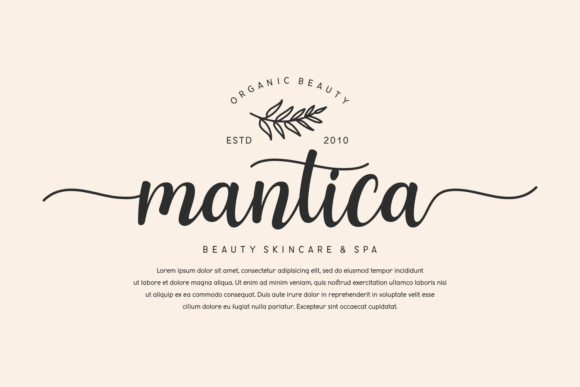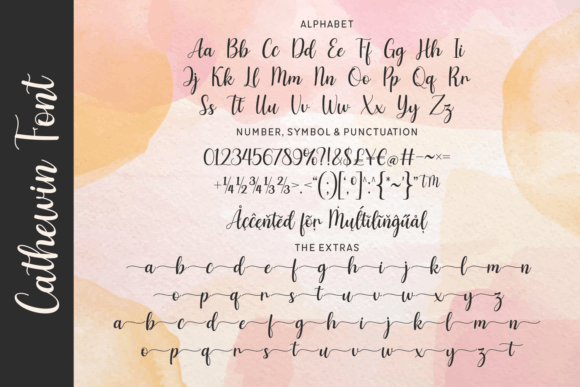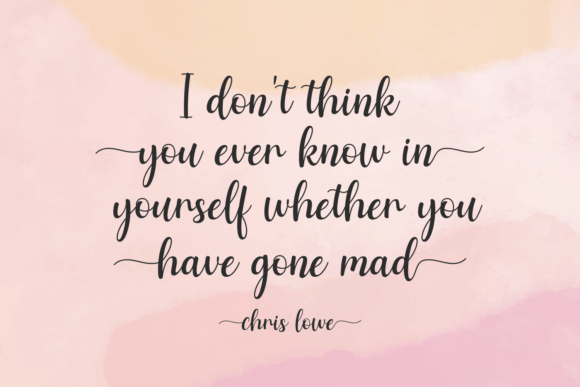
Introducing Cathewin Font: Elevate Your Designs with Elegance and Flair
Are you a designer or crafter looking for a font that exudes sophistication and style? Look no further than Cathewin Font, a stunning script font that is sure to take your creative projects to the next level. With its elegant curves and stylish swashes, Cathewin Font is the perfect choice for anyone seeking to add a touch of luxury and refinement to their designs.
What Makes Cathewin Font So Special?
Cathewin Font is a beautiful script font that features elegant curves and stylish swashes at both the front and back of each letter. Its flowing design adds a graceful touch to any text, making it perfect for invitations, greeting cards, and artistic projects. The font’s unique swashes add a level of sophistication and flair, setting it apart from more traditional fonts.
Whether you’re a professional designer or a crafty DIY enthusiast, Cathewin Font is the perfect choice for a wide range of creative projects. Here are just a few ideas to get you started:
- Invitations: Make a lasting impression with beautifully designed invitations that feature Cathewin Font. Perfect for weddings, baby showers, and other special occasions.
- Greeting Cards: Add a touch of elegance to your greeting cards with Cathewin Font. From birthday cards to thank-you notes, this font is sure to make your cards stand out.
- Artistic Projects: Take your artistic projects to the next level with Cathewin Font. Use it to add a touch of sophistication to your artwork, scrapbooking, or other crafty endeavors.
Key Features of Cathewin Font
Here are just a few key features that make Cathewin Font so special:
- Elegant Curves: Cathewin Font features beautiful, flowing curves that add a touch of sophistication to any text.
- Stylish Swashes: The font’s stylish swashes add a level of flair and elegance to each letter, making it perfect for creative projects.
- Versatile: Cathewin Font is versatile and can be used for a wide range of creative projects, from invitations to artistic endeavors.
Tips for Using Cathewin Font
Here are a few tips for getting the most out of Cathewin Font:
- Use it sparingly: While Cathewin Font is beautiful, it can be overwhelming if used too much. Use it sparingly to add a touch of elegance to your designs.
- Experiment with colors: Cathewin Font looks stunning in a variety of colors. Experiment with different colors to find the one that works best for your project.
- Pair it with other fonts: Cathewin Font pairs beautifully with other fonts. Experiment with different font combinations to find the one that works best for your project.
In conclusion, Cathewin Font is a beautiful script font that is sure to elevate your designs and add a touch of elegance to any text. With its flowing curves and stylish swashes, it’s the perfect choice for designers and crafters looking to create sophisticated and stylish creative projects. Whether you’re designing invitations, greeting cards, or artistic projects, Cathewin Font is the perfect choice. So why wait? Download Cathewin Font today and take your designs to the next level!